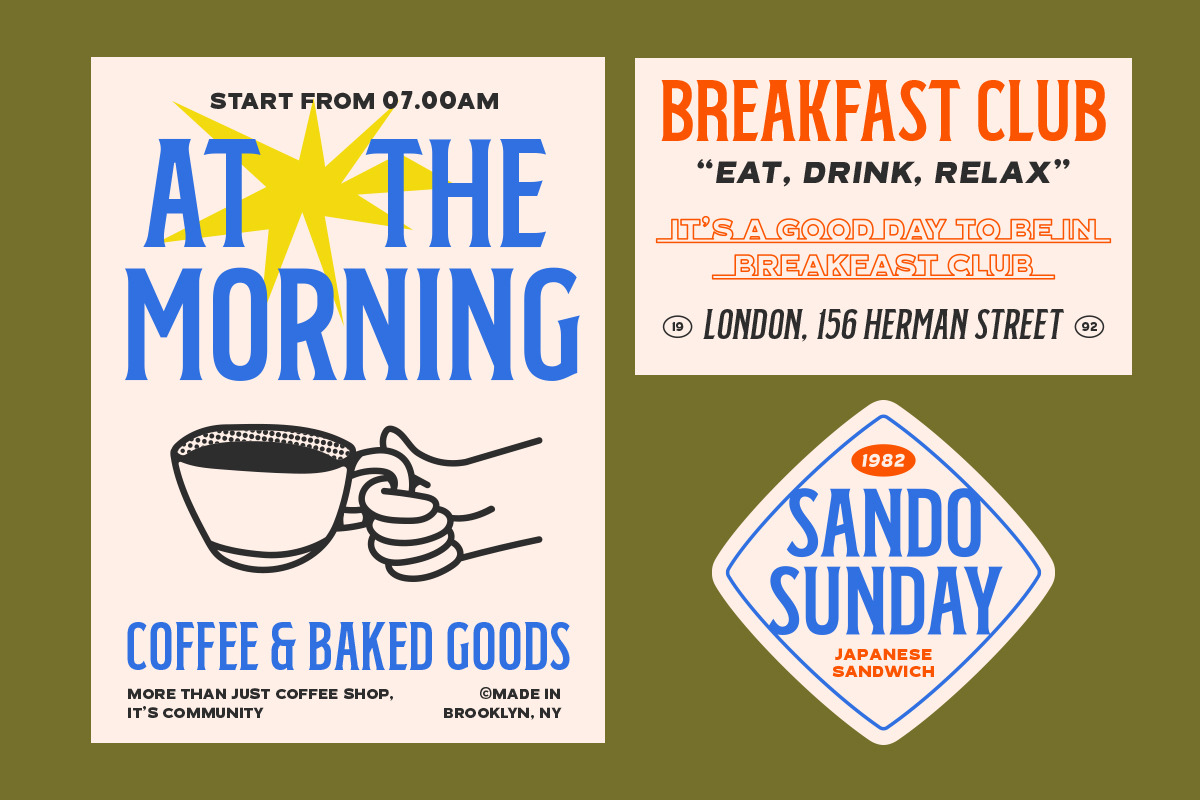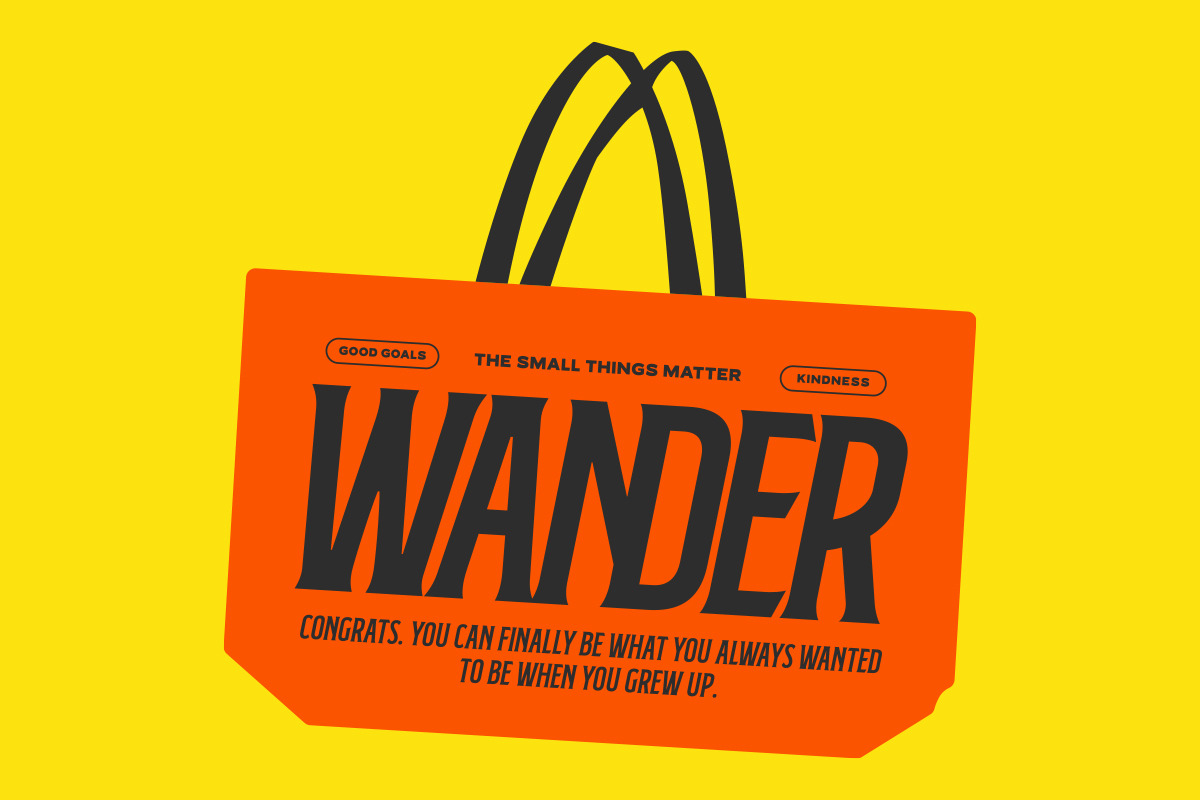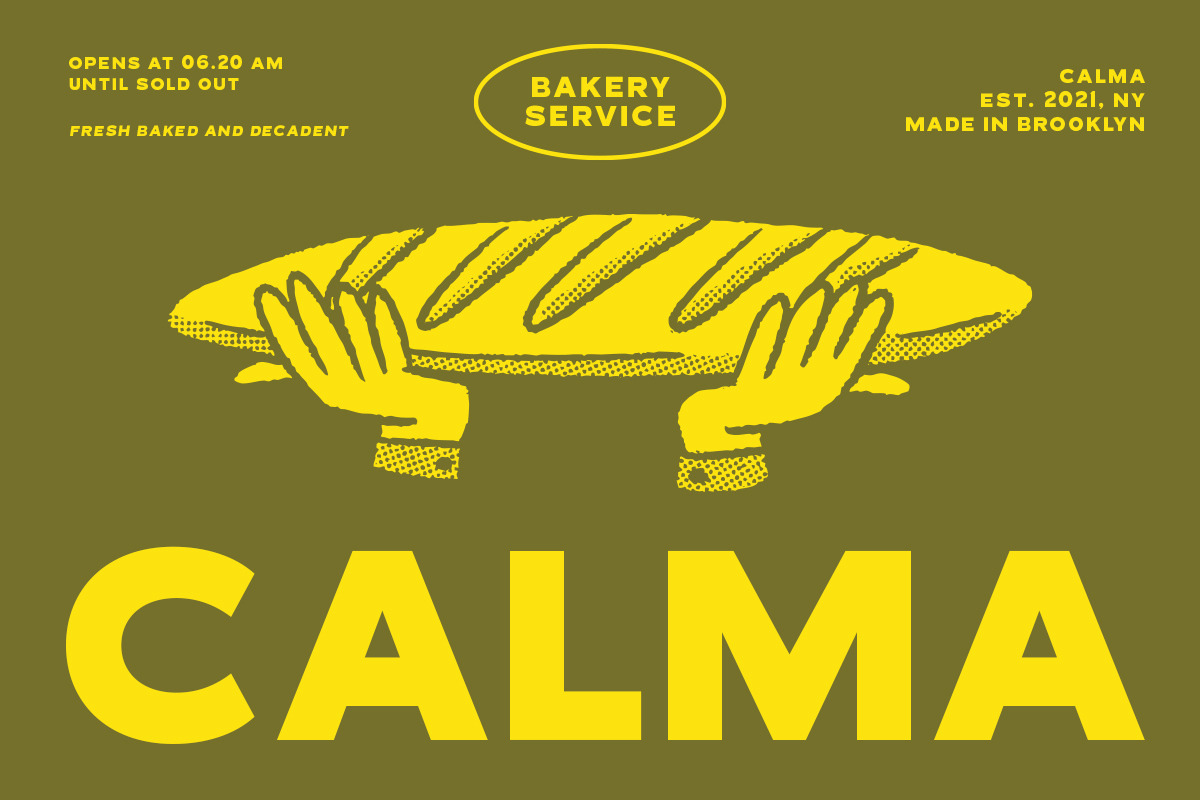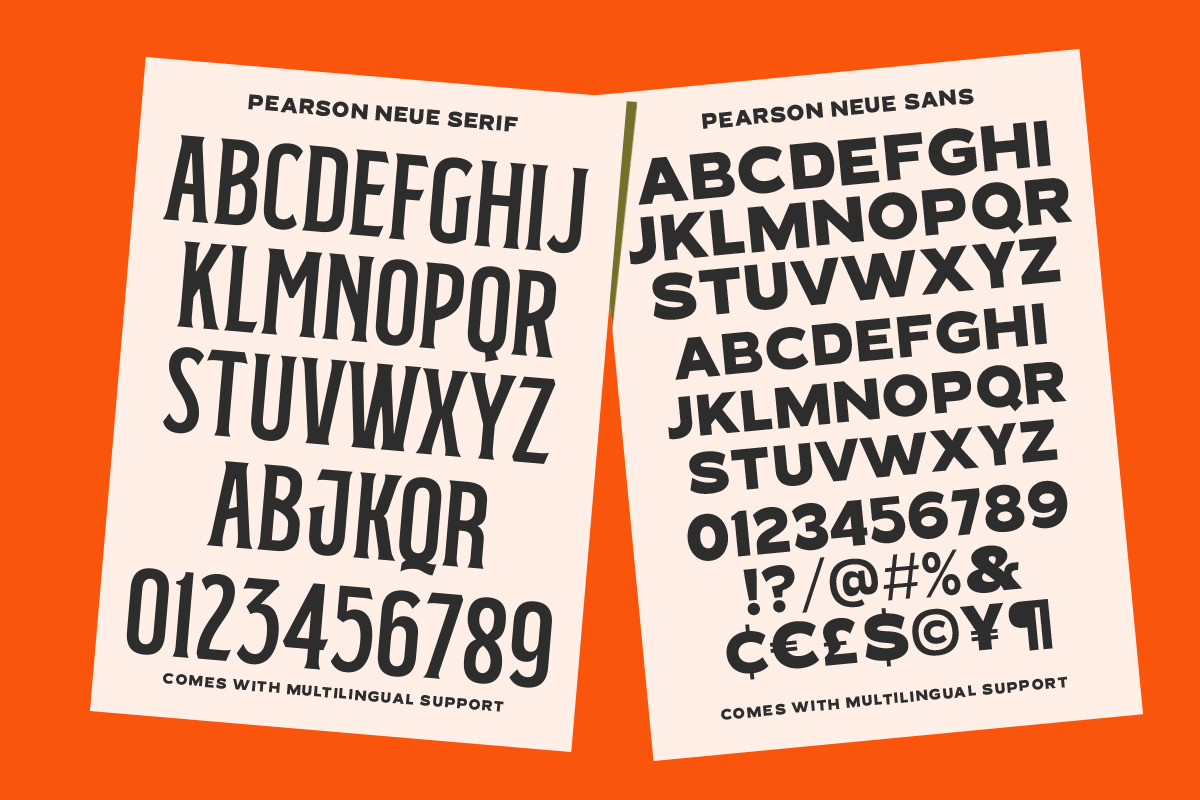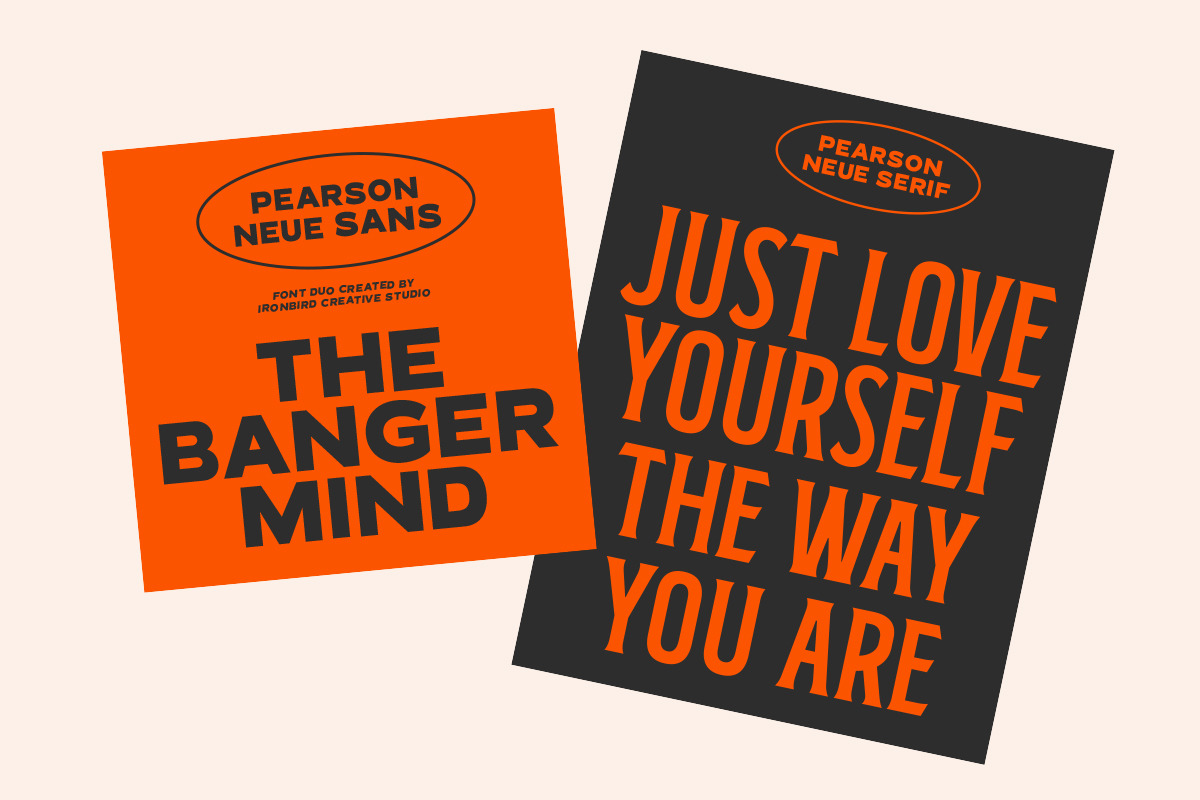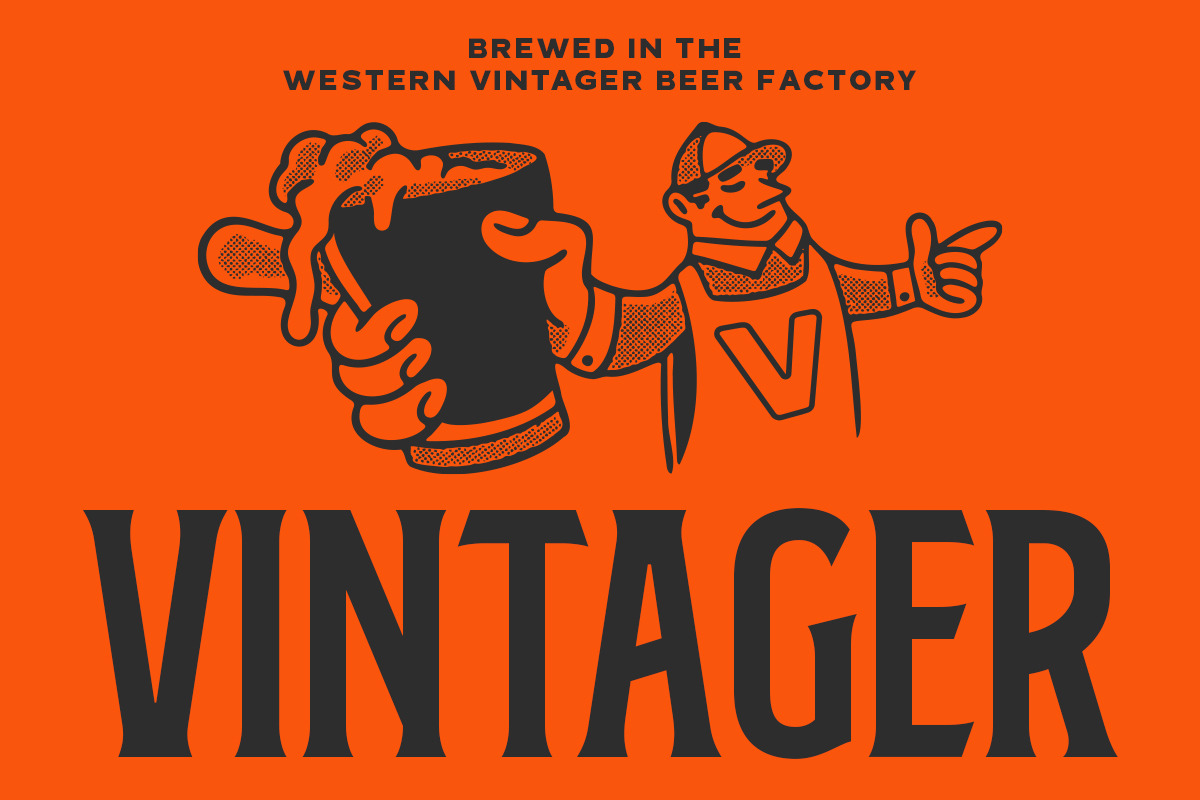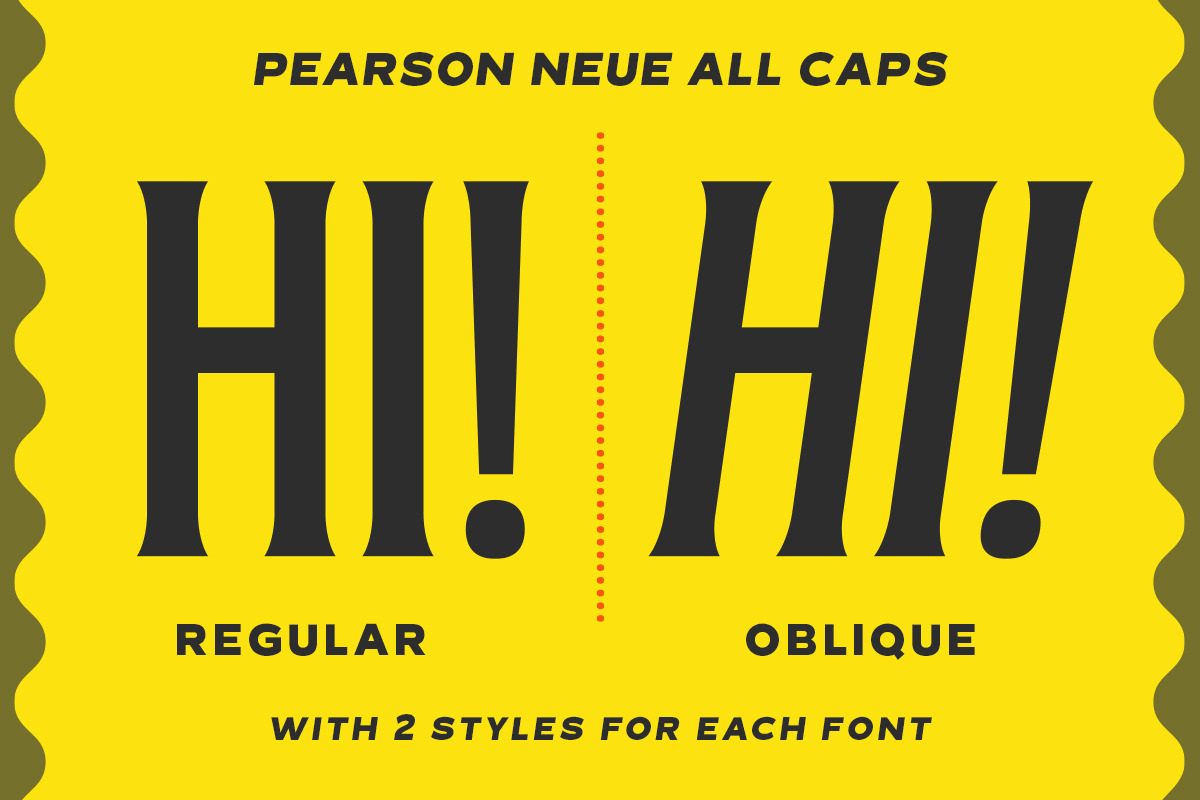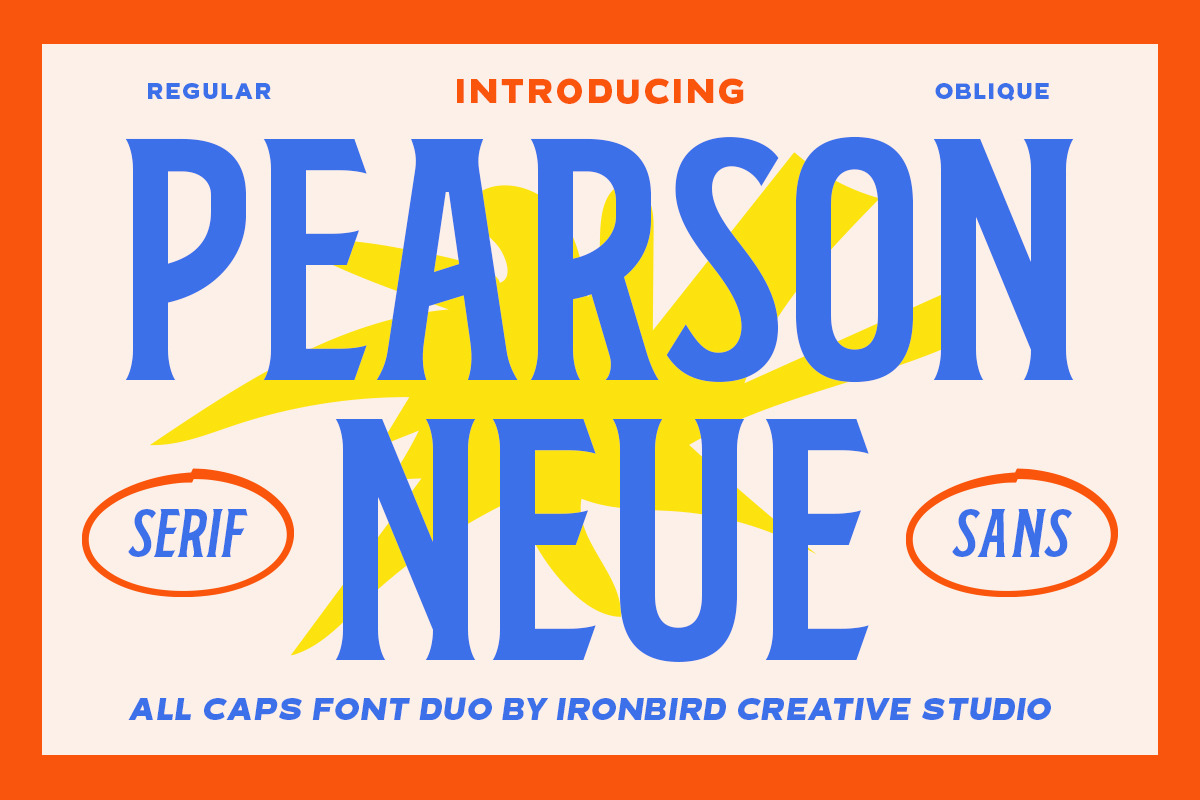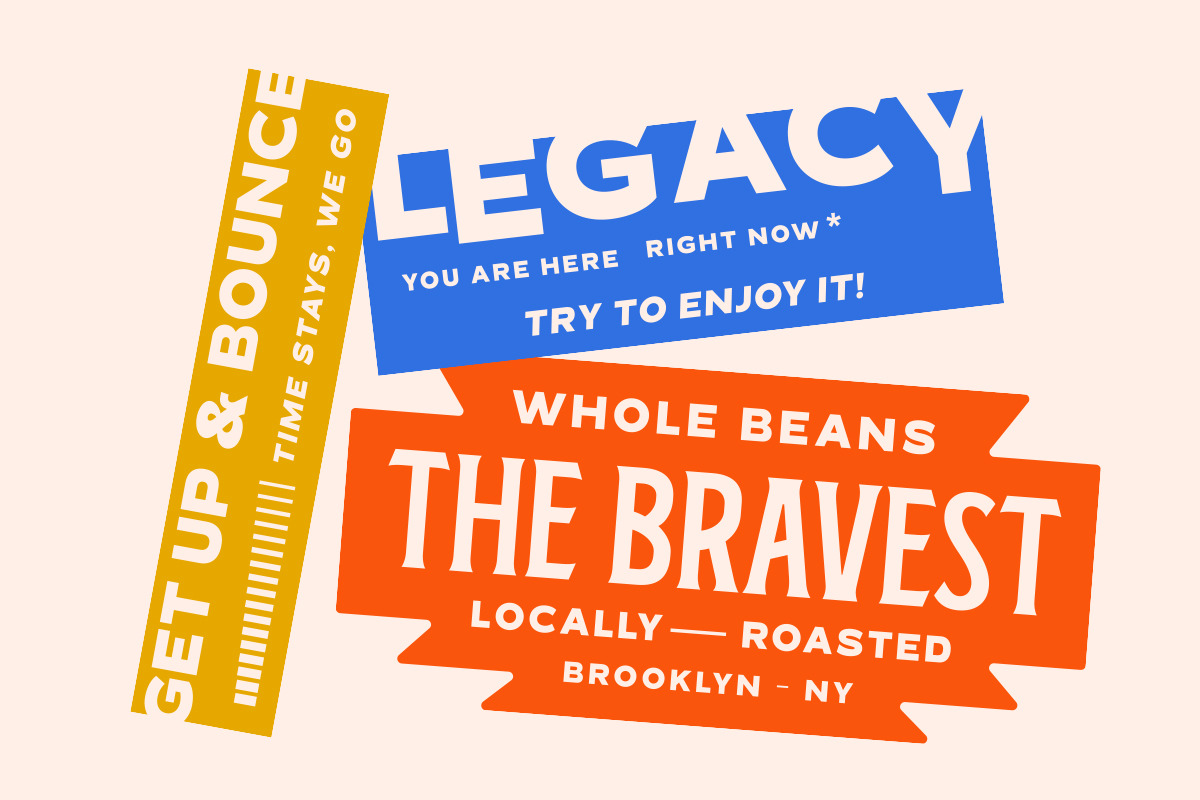
IC Pearson Neue - Font Duo
Pearson Neue is a font created based on the previous Pearson font, this font is made with a Serif type that has a Condensed and Sans Serif type with Expanded. Only with All Caps letters to give a strong and bold impression and give a vintage, classic, old school, and handmade impression. Comes with 2 font styles, Regular and Oblique. Suitable for any graphic design such as branding materials, t-shirts, logos, posters, quotes, or packaging designs.